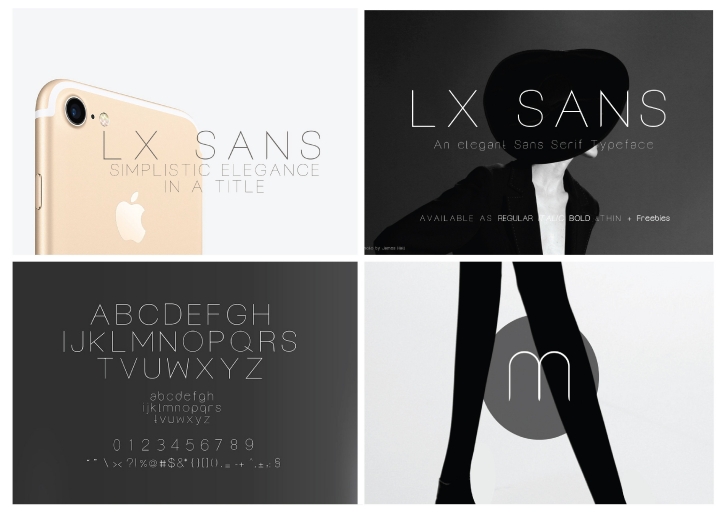
Timeless Luxury font, ready for use. Just write any word and it will be transformed into a simplistic timeless logo. At the end of the day, a timeless font should have the right curves, and thats why I designed this font for my personal logo creation use. And now I am sharing it with you.
LX Sans luxury font (Regular, Light, Thin, Bold and Italic LX Sans fonts) with free business cards mockups using LX SANS. The font is very slick, elegant and Sans Serif. Ideally for luxury brands, fashion designers, fashion blogs, luxury packaging, apparel, jewellery, cars, yachts, palaces, museums, etc..